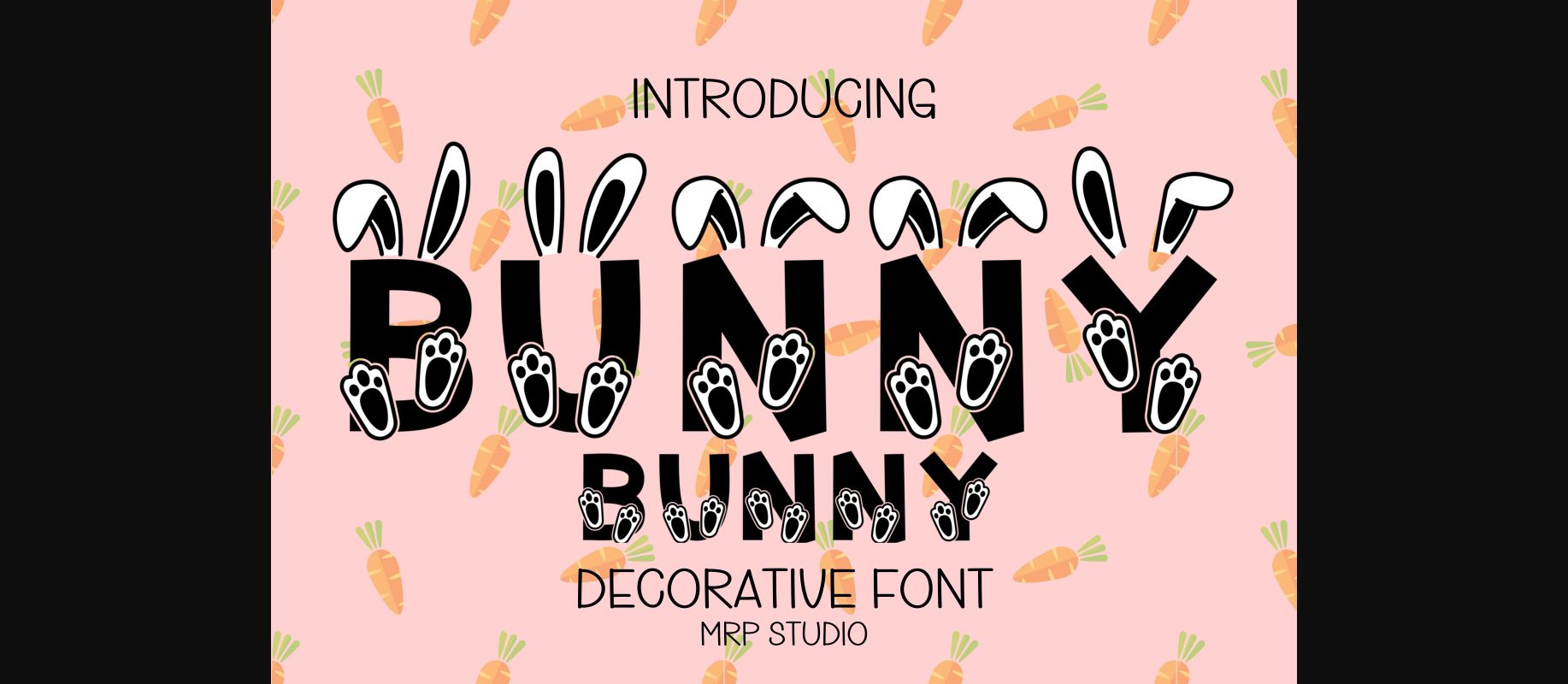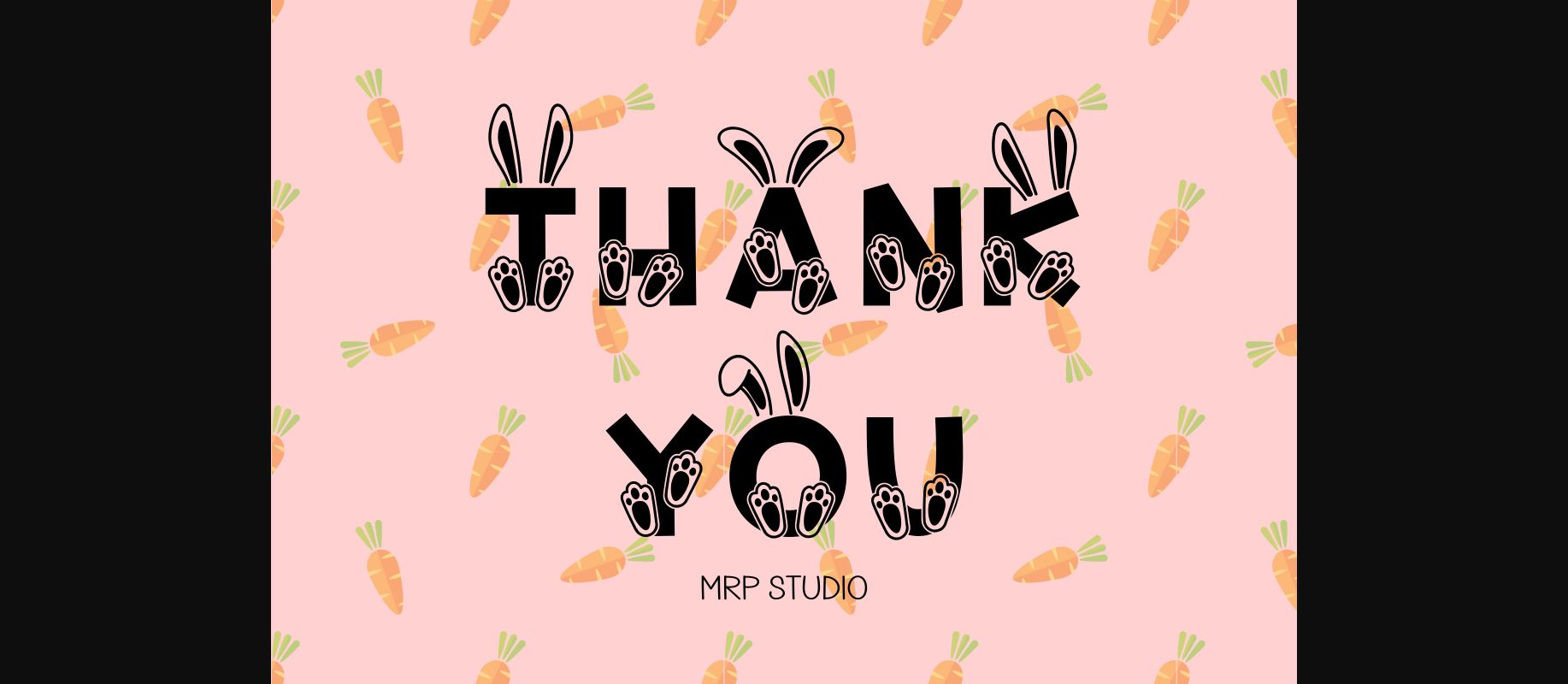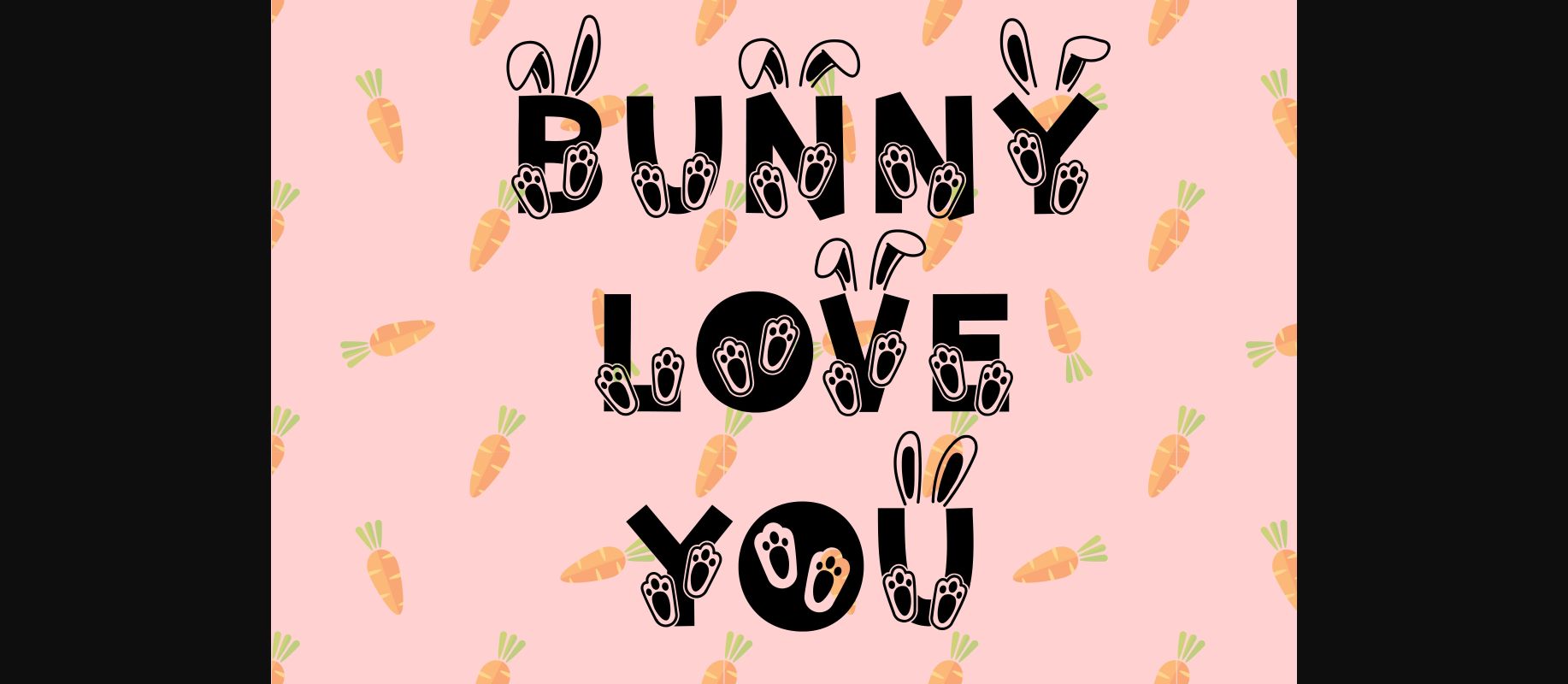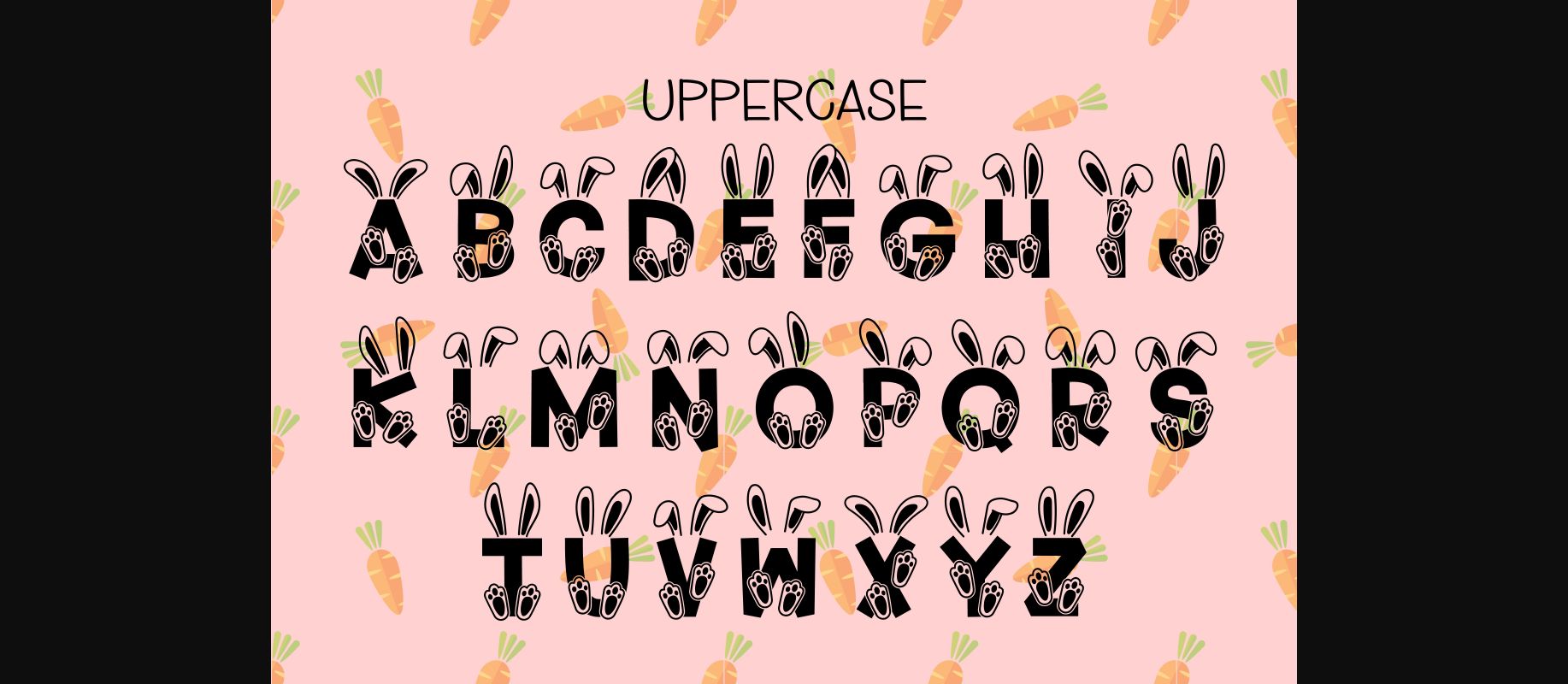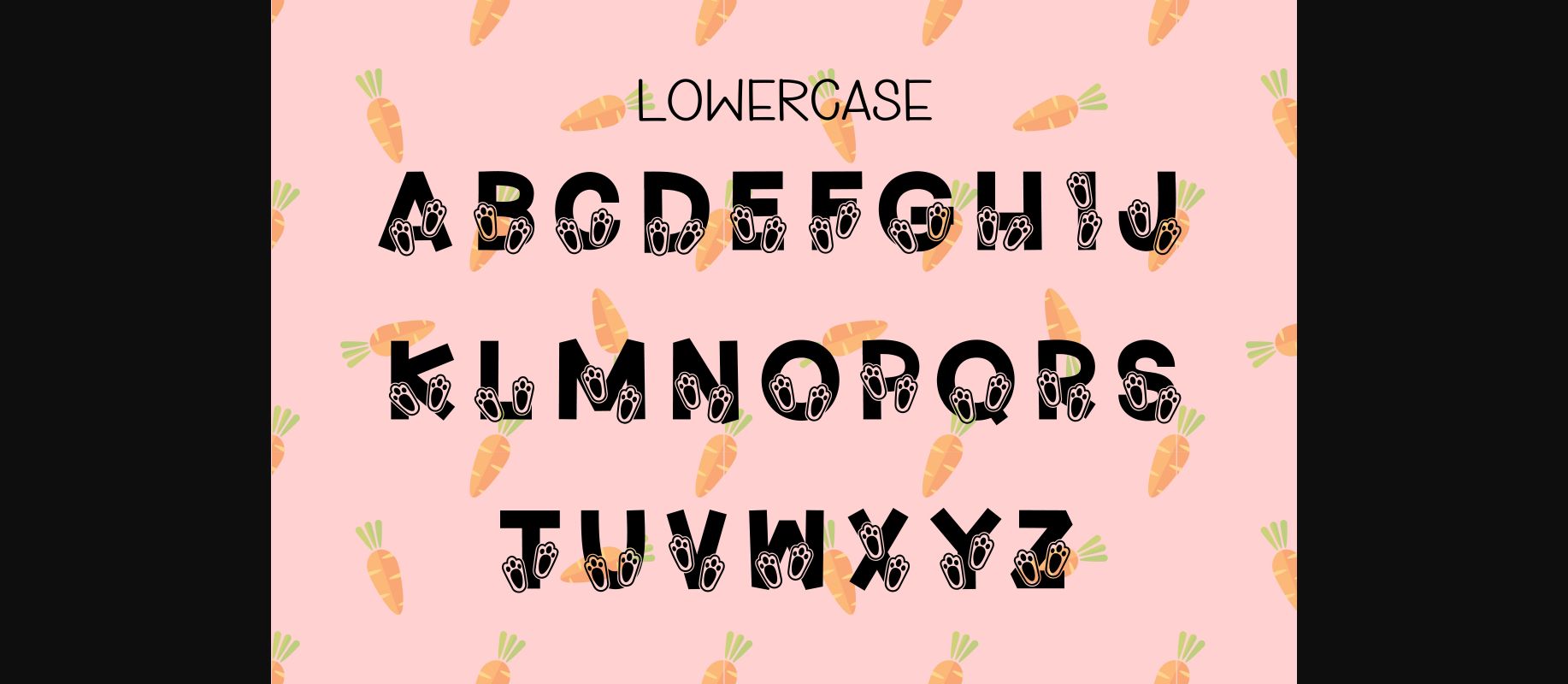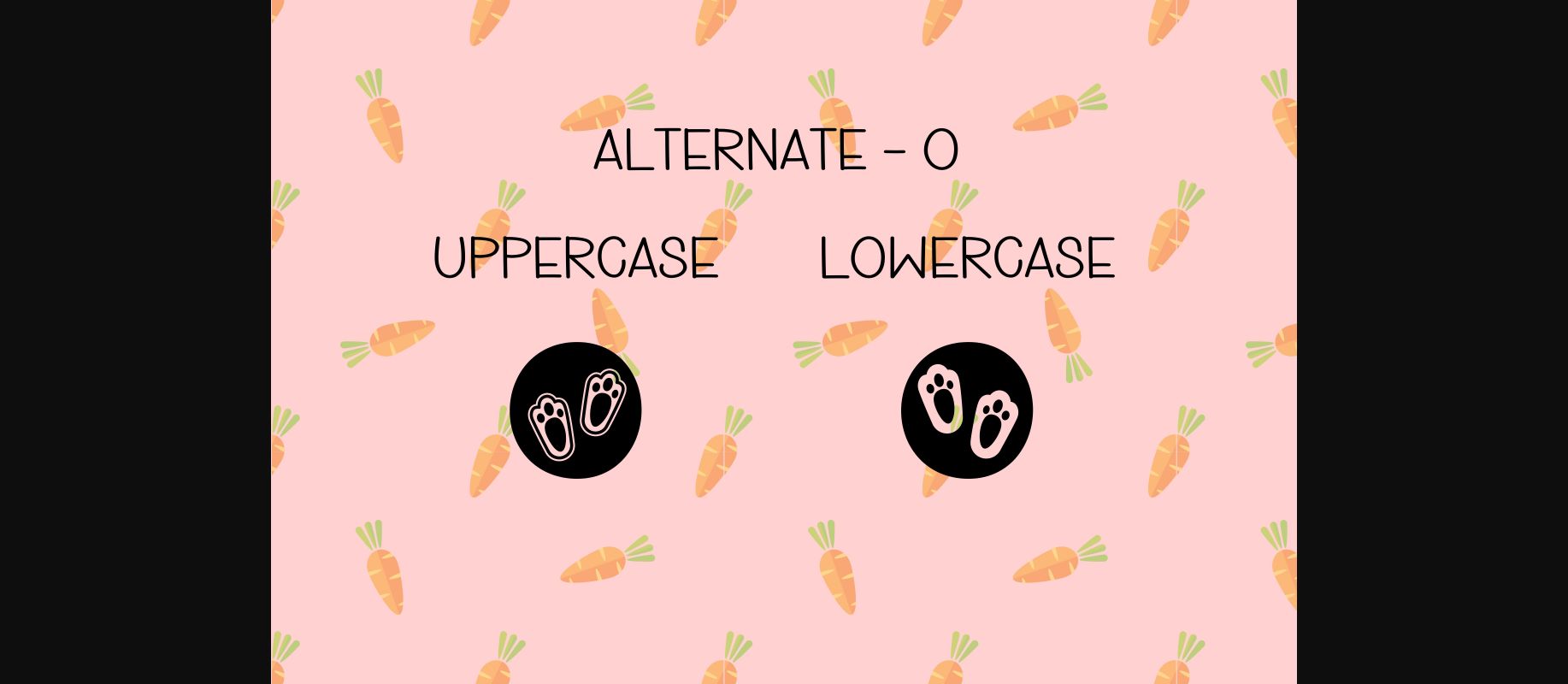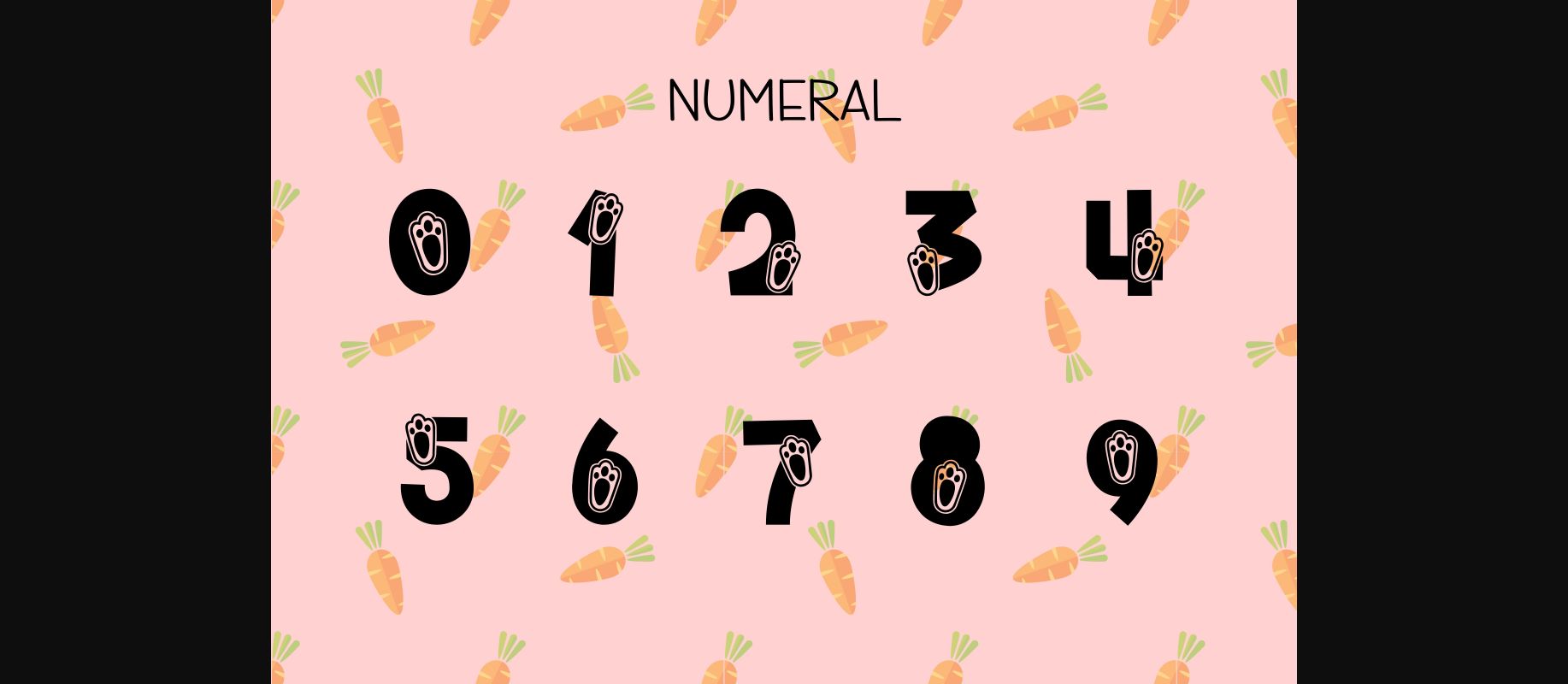
Bunny Font
About Bunny Font
Bunny is designed in a cute and adorable decorative font style. It would be awesome for a lovely Easter Project and also your child-related project such as back to school, birthday party decoration, and much more. Try it and add it to your creative ideas and notice how it makes them stand out!